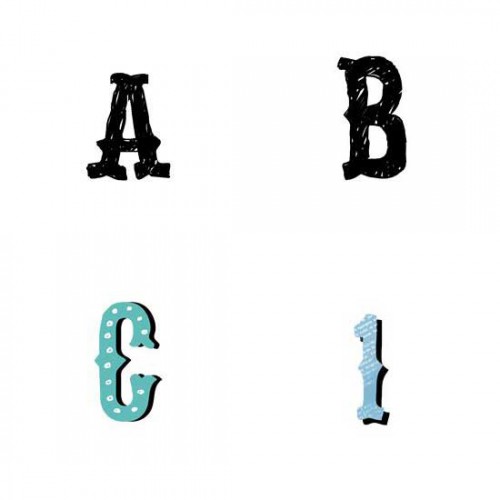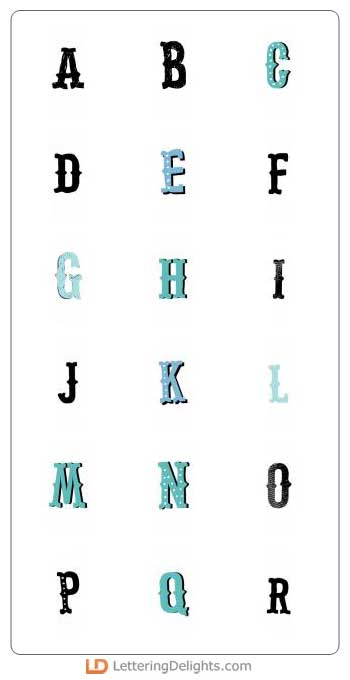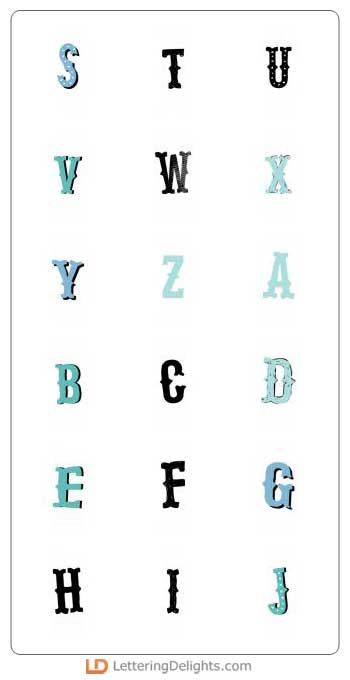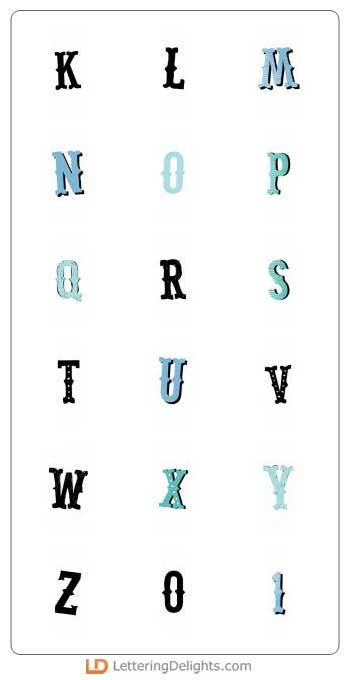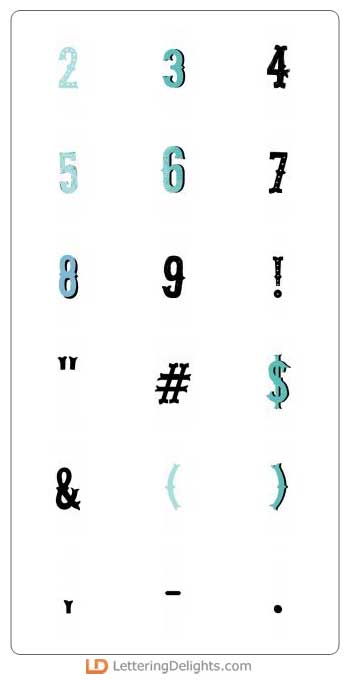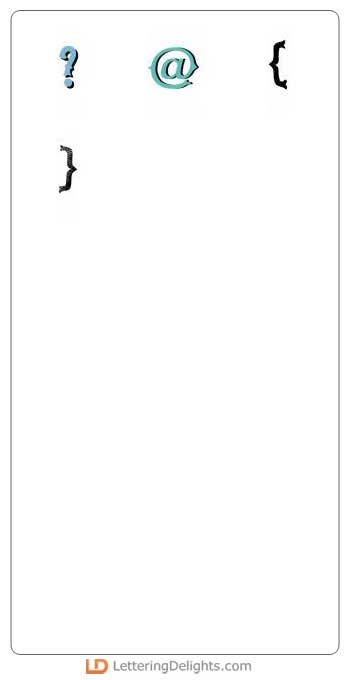
With characters slightly toggled in size and stance, the Class Act Alphabet provides a little fun while letting you express your thoughts. It has the youthful appearance of dots and shadows and colored-in characters (even staying within the lines, mind you!).